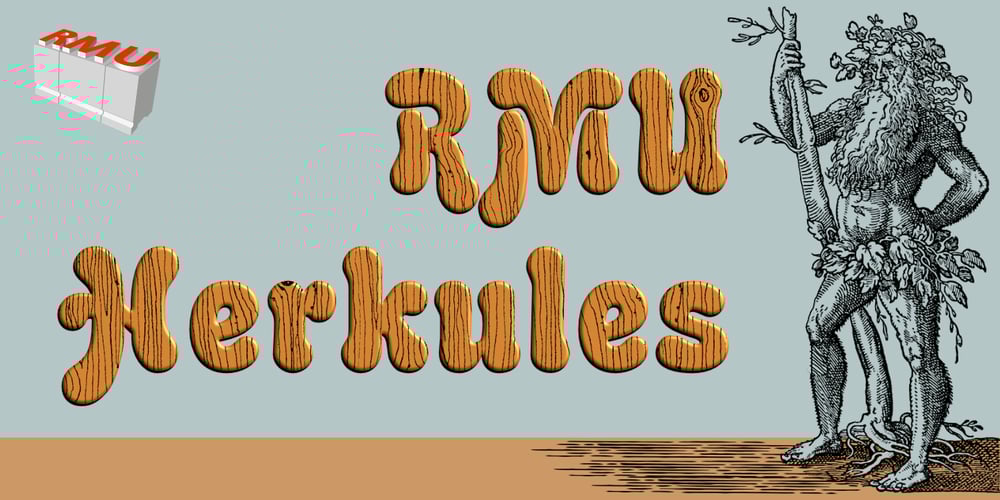
RMU Herkules
RMU Herkules font
RMU Herkules Font Family was designed by Ralph M. Unger and published by RMU. RMU Herkules contains 1 styles and family package options. At the end of the 19th century, the fin de siècle, both Bauer and Berthold released ‚Herkules‘, a heavy Art Nouveau font for ads and posters. This font was carefully redesigned and makes it a great font in Jugendstil surroundings and a splendid partner of the Carlsbad font family.